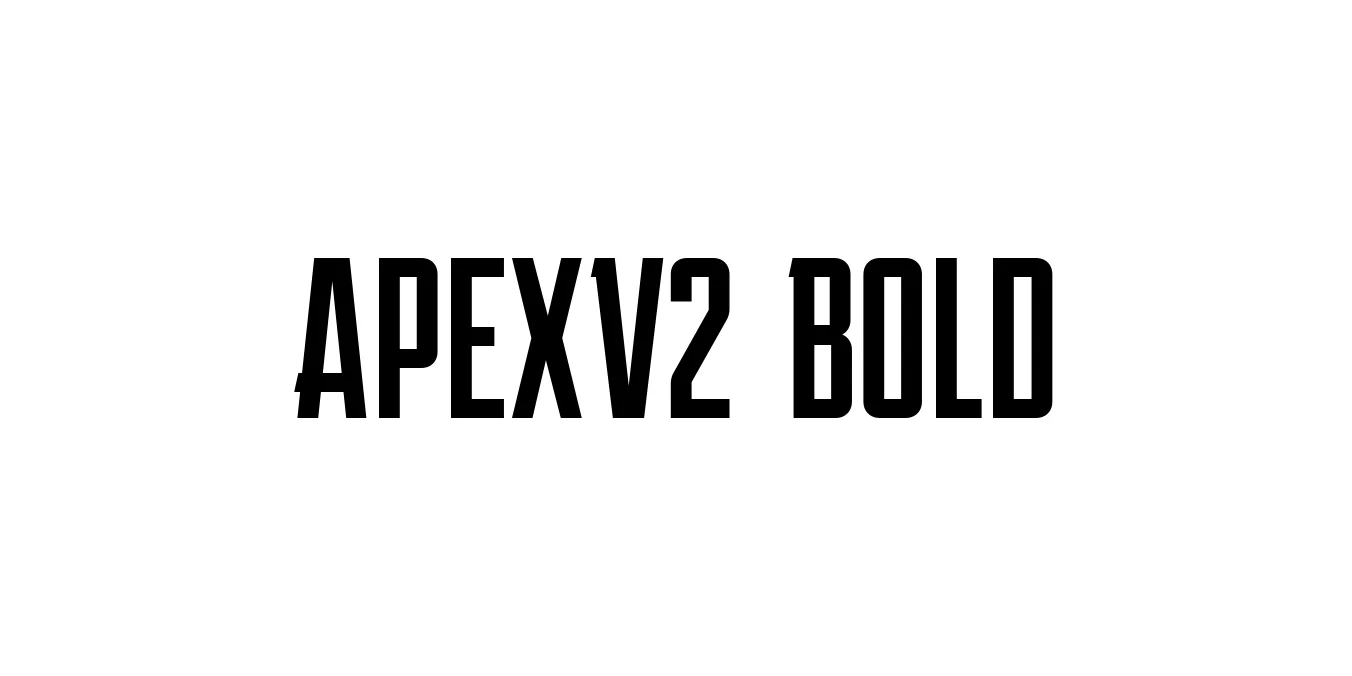
ApexV2 Bold
Designed by Jeremy Nelson
ApexV2 Bold is a robust and highly geometric sans-serif typeface designed to convey strength and modernity. Evolving from the original Apex series, this version emphasizes clean lines and a high X-height, making it exceptionally legible for both digital and print applications. Its architectural structure is inspired by classic industrial typography but refined with a contemporary touch to suit modern branding needs.
The ApexV2 Bold weight is particularly effective for display purposes where impact is paramount. It has become a staple in the gaming and esports communities due to its futuristic aesthetic and balanced proportions. Whether used for large-scale headers or sharp, minimalist logos, this font provides a professional and tech-forward appearance that stands out in a crowded visual landscape.
ApexV2 Bold Best Uses
Perfect for team logos and jersey numbering due to its aggressive yet clean structure.
High impact for landing pages and hero sections requiring a bold visual hierarchy.
Ideal for companies wanting to project a modern, forward-thinking identity.
Great for large-format printing where legibility from a distance is required.